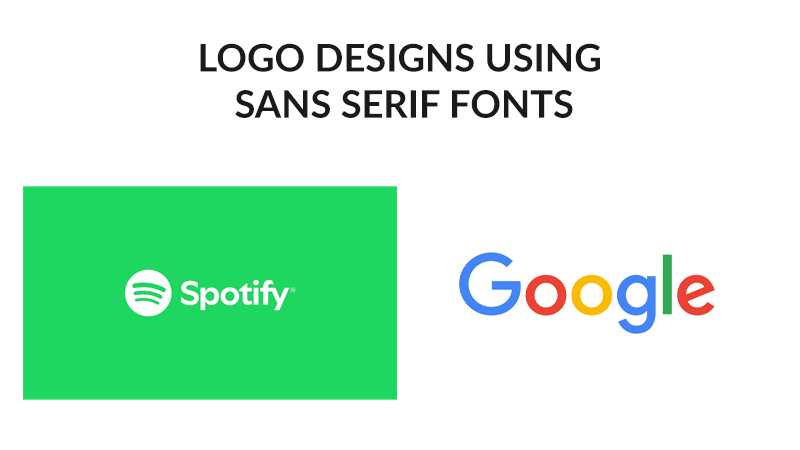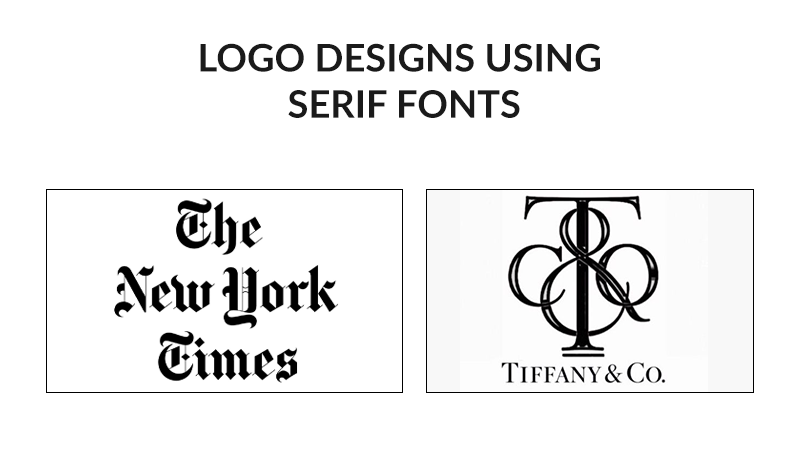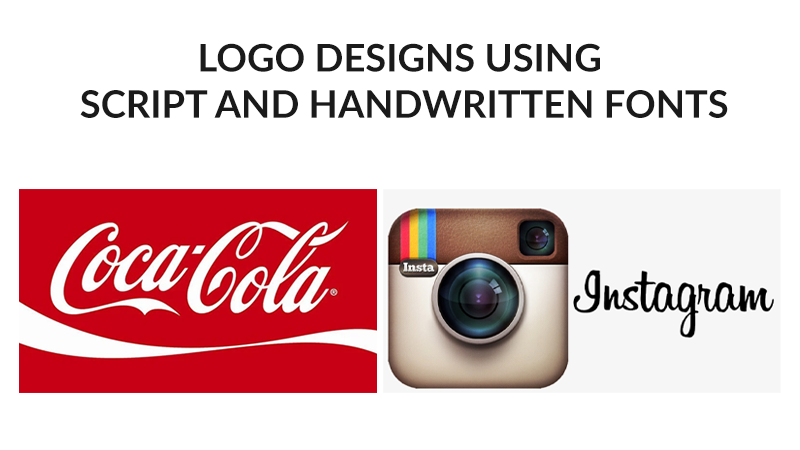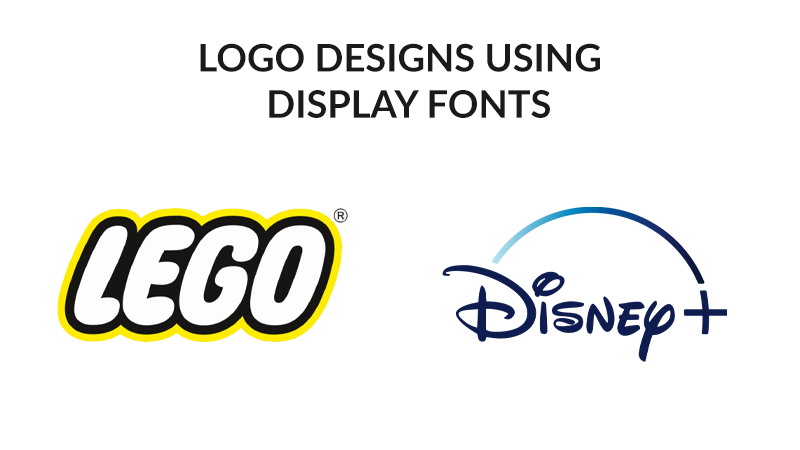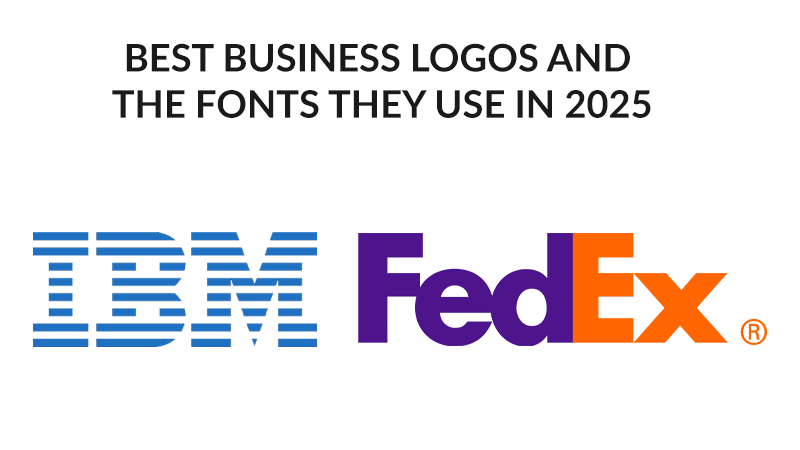
Fonts are not just design choices, they’re the visual voice of your brand. In today’s competitive business landscape, where audiences can form first impressions within just 50 milliseconds. The right font can define whether your logo looks professional and timeless or it can be forgotten in no time.Â
When it comes to building a minimalist, modern brand identity – typography sites as the foundation. The best fonts for modern logos do a lot more than helping them look great, they communicate style, personality and trust in one go. Whether you’re revamping the identity of your existing brand, launching a new startup or creating a bold rebrand for 2025, making the right logo font choice is one of the most strategic decisions you’ll make in the process.Â
In this guide, we’ll explore what makes a great logo font, highlight the best modern fonts for logos in 2025, and break-down the framework for choosing typography that fits your brand. By the end, you’ll know which fonts can help brands stand ahead of all competitors and how you can make the right choice.Â
Why Font Choice is Crucial for Brand IdentityÂ
A logo is not only a graphic, it’s the face of your business. And at the heart of every logo lies typography. Fonts can shape how your audience may perceive your brand such as, playful, trustworthy, luxury or innovative. In fact, studies report that consistent branding across all platforms can maximize the revenue by 23%. Choosing the best fonts for modern logos is a core step in that consistency.Â
When businesses rely on good fonts for logos, they integrate subtle signals that can help building trust. Think of Coca-Cola’s iconic ‘flowing script’ – it communicates timelessness and authority. The clean serif sans font used by Google showcases modernism and simplicity. These are not some random choices, instead, they’ve been strategically selected professional fonts for logos that truly aligns with brand values and audiences.Â
Contrarily, using the wrong fonts can often impact your credibility. Using a playful script on the logo of a financial firm can feel misplaced and a rigid serif font wouldn’t go right with a youth-oriented lifestyle brand. That’s why brands focusing on growth need to think beyond aesthetics.Â
The best fonts for branding help bridging creativity with strategy. They’re not only readable but also scalable and versatile – built to represent your company across print, digital, and physical touchpoints. Put simply, font choice is a brand choice.Â
Characteristics of the Best Fonts for Modern LogosÂ
Not all fonts are crafted to carry the burden of entire brands. While some are great on the outlook and often tempts you when making a choice, the best fonts for modern logos are those sharing specific qualities that can help you stand-out in a crowded market ensuring clarity across all platforms.Â
Simplicity and ReadabilityÂ
From billboards to mobile screens, logos appear everywhere and play a critical role when it comes to building brand identity and recognition. Good fonts for logos are easier to read no matter the size – making sure your brands remain easily recognizable even in small digital formats.Â
Scalability and VersatilityÂ
A font can look very appealing on a website but lose impact in print. That’s a very common dilemma for brands. Using top logo fonts that are both versatile and scalable is the only solution and can also help maintain your brand’s character across different platforms, from social media icons to packaging and everything else.Â
Timelessness over TrendinessÂ
Though trendy cool fonts for logos can be great and tempting, they’re not always timeless and age quite poorly. Brands that come with the intention of lasting for decades choose great logo fonts that maintain a balance between timeless design and modern appeal.Â
Alignment with Brand PersonalityÂ
The choice between sans serif, serif, and script is never random. Modern sans serif fonts for logos are intentionally picked up by brands that aim to reflect minimalism and innovation. Serif fonts, on the contrary, are used to communicate trust and tradition. Script display fonts are great for creative and expressive brands.Â
To cut it short, the best font for logos are ones that feel authentic to your brand’s voice. It’s not just a font type for logos but the design choice must reflect what your brand reinforces every time the audience looks at it.Â
Best Modern Fonts for Logos In 2025Â
Typography trends continue to evolve every day, but there are some styles that manage to dominate the design world consistently. Let’s take a look at some of the best modern fonts for logos in 2025, broken down by categories to help you match them with the personality of your brand and industry without hassle.Â